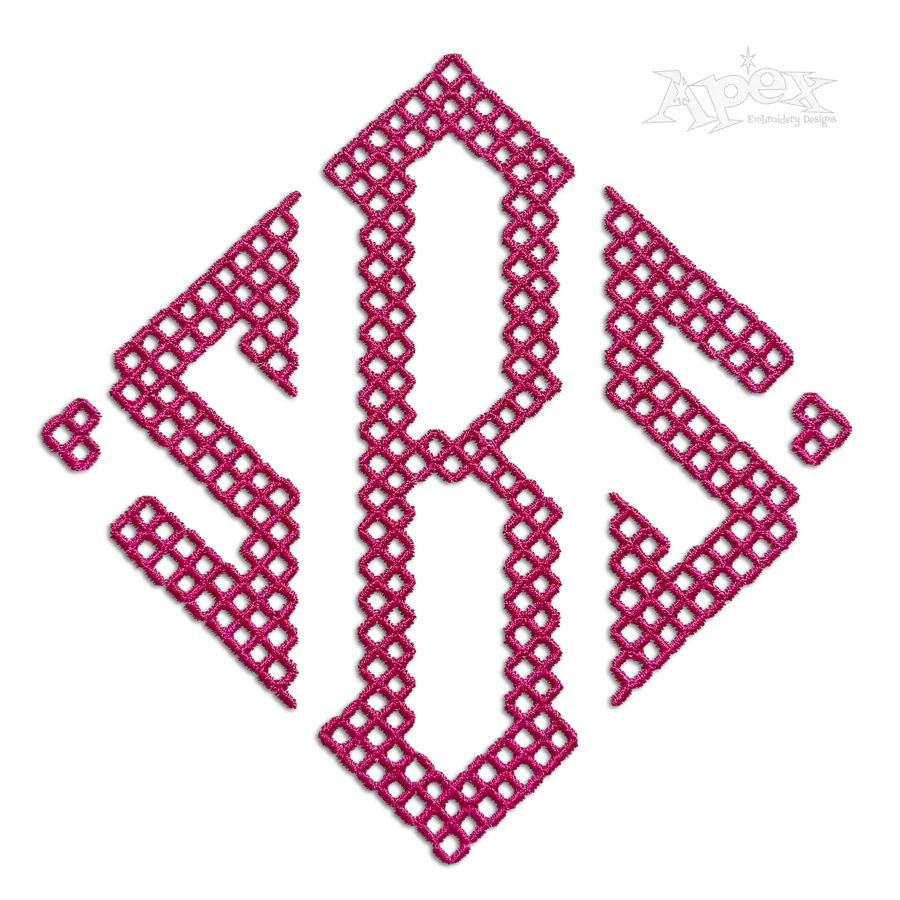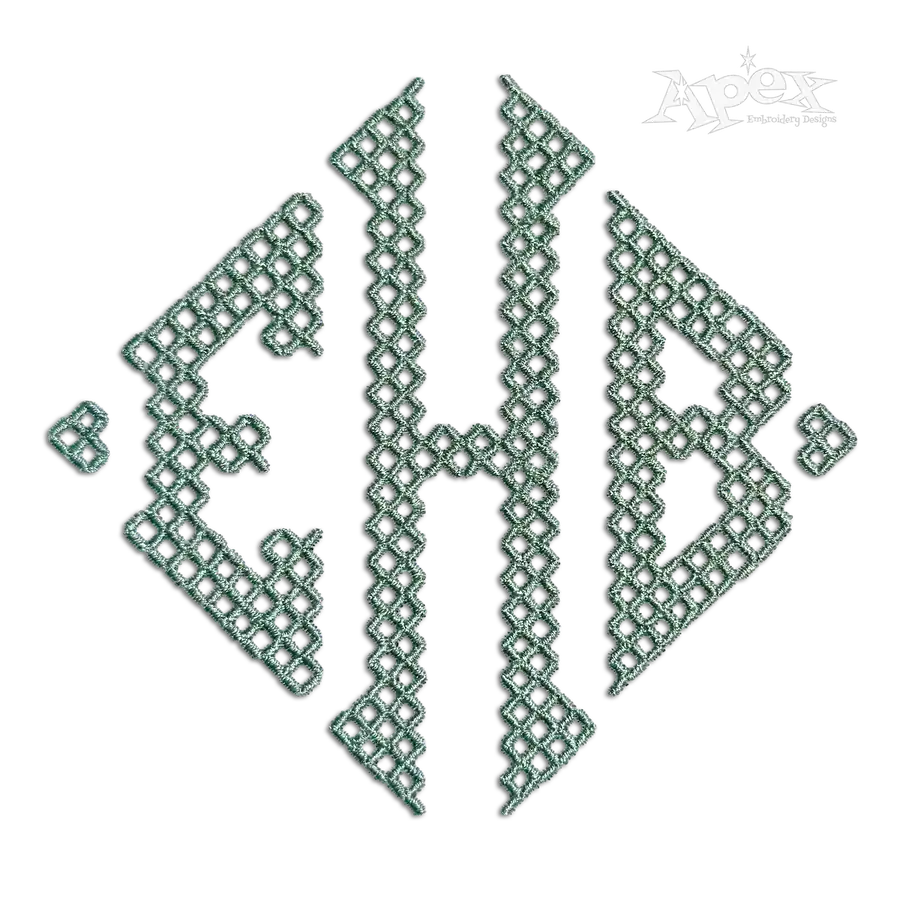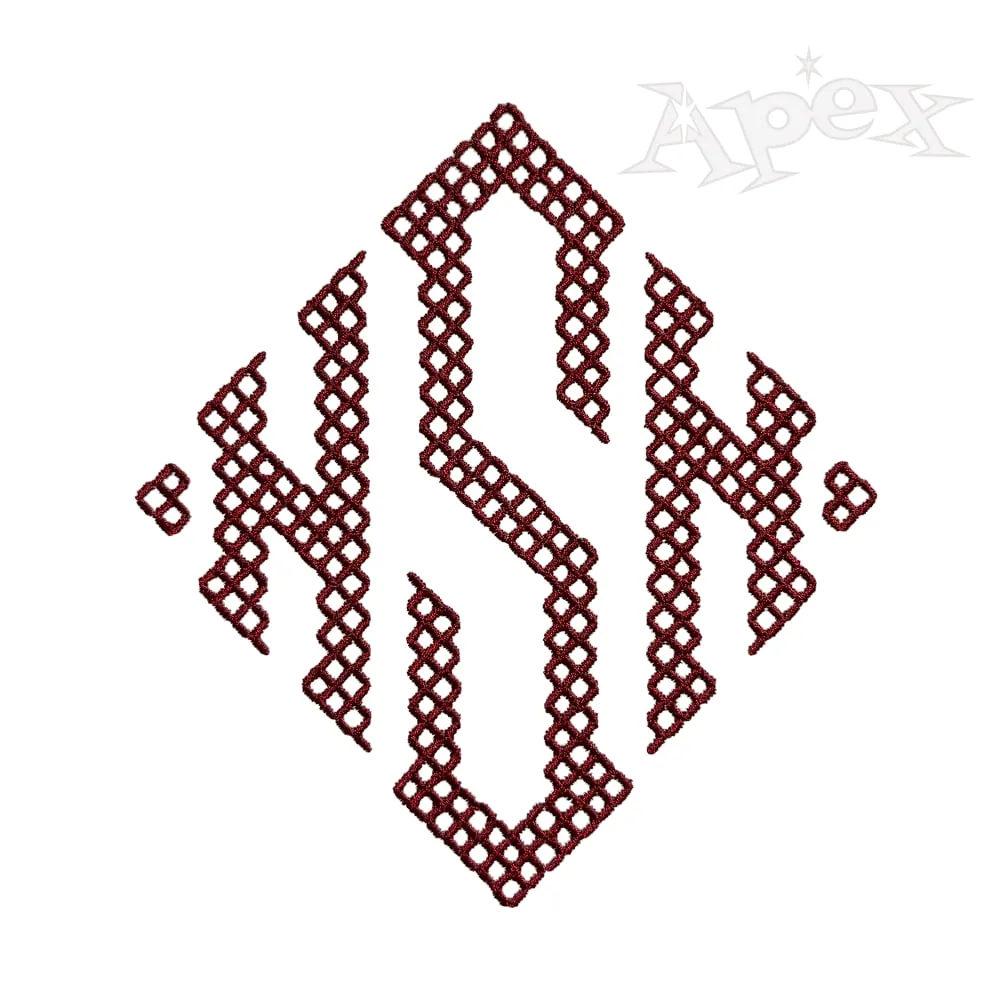
Cross Stitch Diamond Monogram Embroidery BX Font
Create personalized gifts and home décor with this Cross Stitch Diamond Embroidery Font Bundle. Featuring a classic with fancy stylish embroidery monogram set is perfect for customizing hats, linens, towels, baby gifts, tote bags, and more.
This embroidery font collection includes complete size sets includes uppercase A-Z monogram letters designed for creating stunning 3-letter monograms. Each font comes professionally digitized for smooth stitching and excellent embroidery results.
- Cross Stitch Diamond Monogram Font
- Sporty for 3-Letter Monograms and Frames
- Custom Home Décor Projects